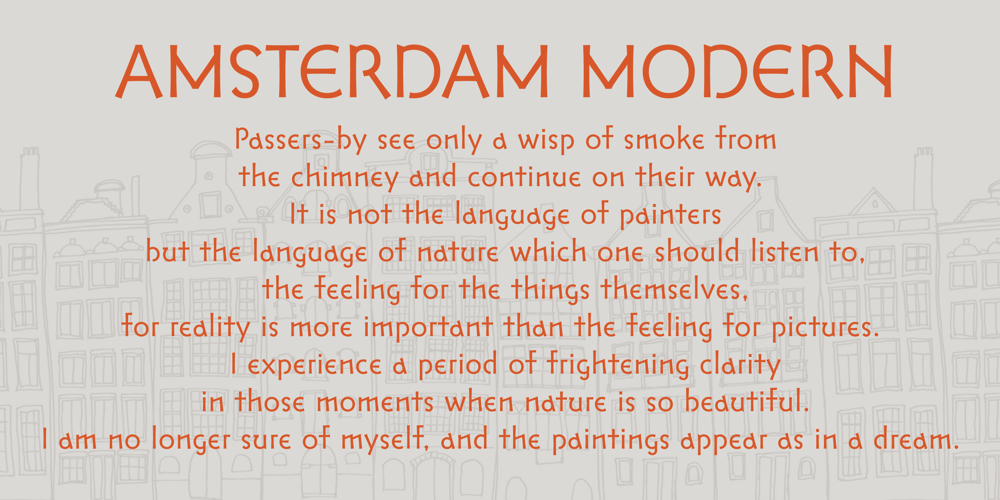
Amsterdam Modern Font Family was designed by Ryoichi Tsunekawa and published by Dharma Type. Amsterdam Modern contains 3 styles and family package options. The idea of Amsterdam Modern comes from the roofs of buildings ranged along the canal in Holland and the font was designed to have not only an industrial but also a handcrafts atmosphere. The family consists of three weights and is the best used for packaging, logos of products and short sentences.